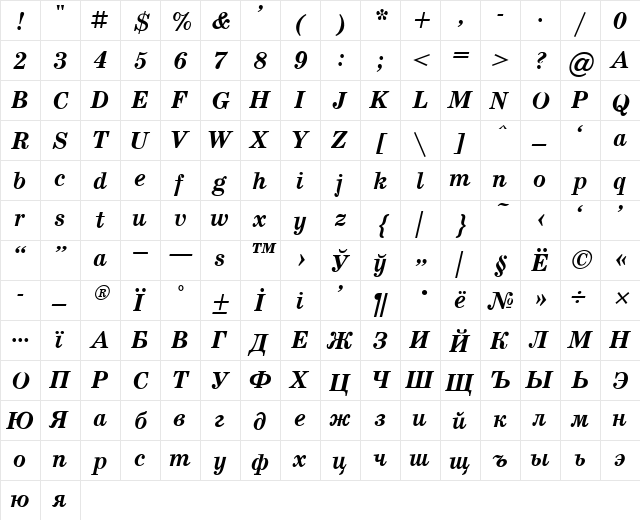
School Bold Italic
Design Context for School Typeface
School takes a measured approach to typography — its balanced proportions and neutral character make it a reliable workhorse for both digital and print work. The dynamic lean of this cut emphasises speed and emphasis in any layout. The heavy weight commands attention and anchors typographic hierarchies.